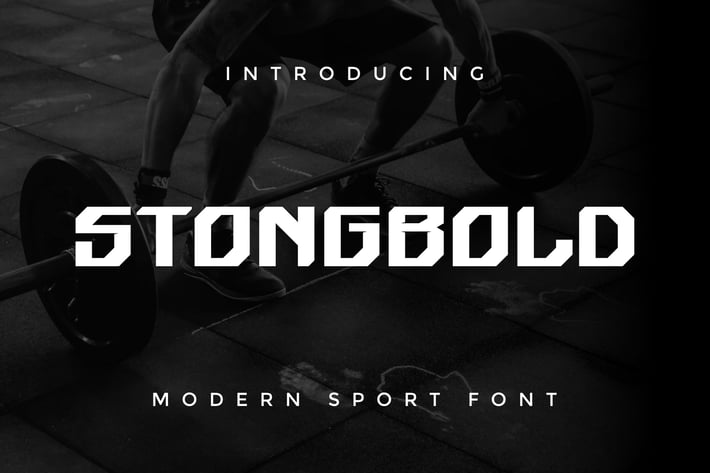
Stongbold - Modern Display Font
Introducing our new product Stongbold - Modern Display Font
Stongbold is a bold, modern display font with playful flair, ideal for attention-grabbing headlines, logos, and diverse design projects. Versatile and readable in both digital and print, Stongbold adds a dynamic touch to your message.